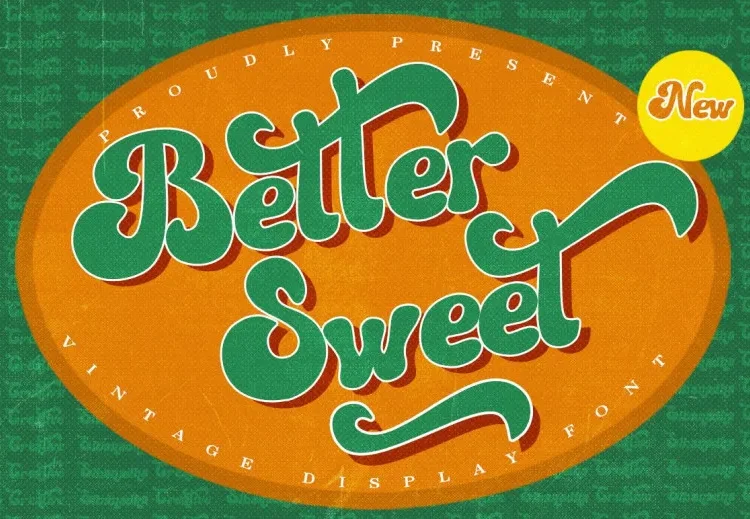
Better Sweet Font
Better Sweet is an old-fashioned display font crafted to suit a variety of design projects. Its charming aesthetic makes it an excellent choice for logos, branding designs, and homeware packaging, including products like mugs. Additionally, this versatile font works beautifully for posters, quotes, shopping bags, t-shirt graphics, book covers, greeting cards, invitation cards, and watermarks for special occasions.
Key Features of Better Sweet:
• Design Versatility: Perfect for a wide range of applications, from branding to packaging.
• Elegant Aesthetic: Ideal for projects requiring a touch of beauty and sophistication.